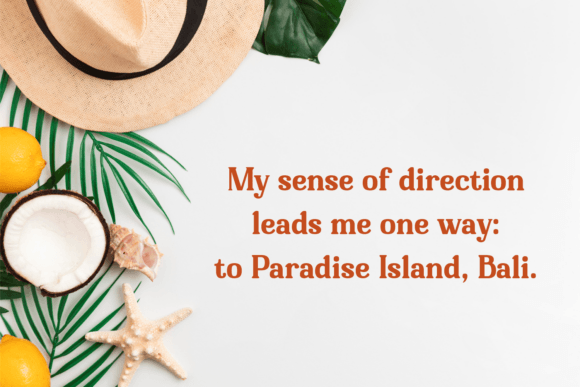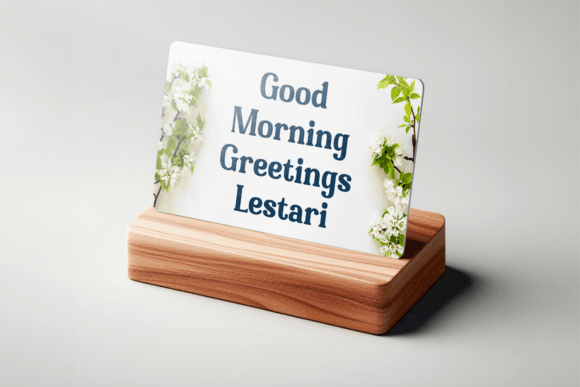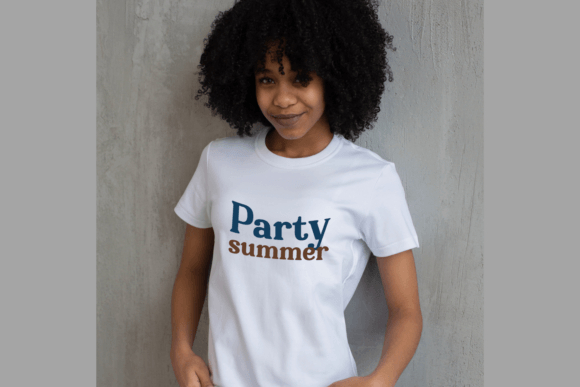
Introduction to Perfectly California Font
Perfectly California is an elegant serif font that captures the essence of modern sophistication and timeless beauty.
Its refined curves and balanced proportions make it ideal for branding, invitations, and editorial designs Perfectly suited for luxury and style, it exudes effortless elegance and charm.